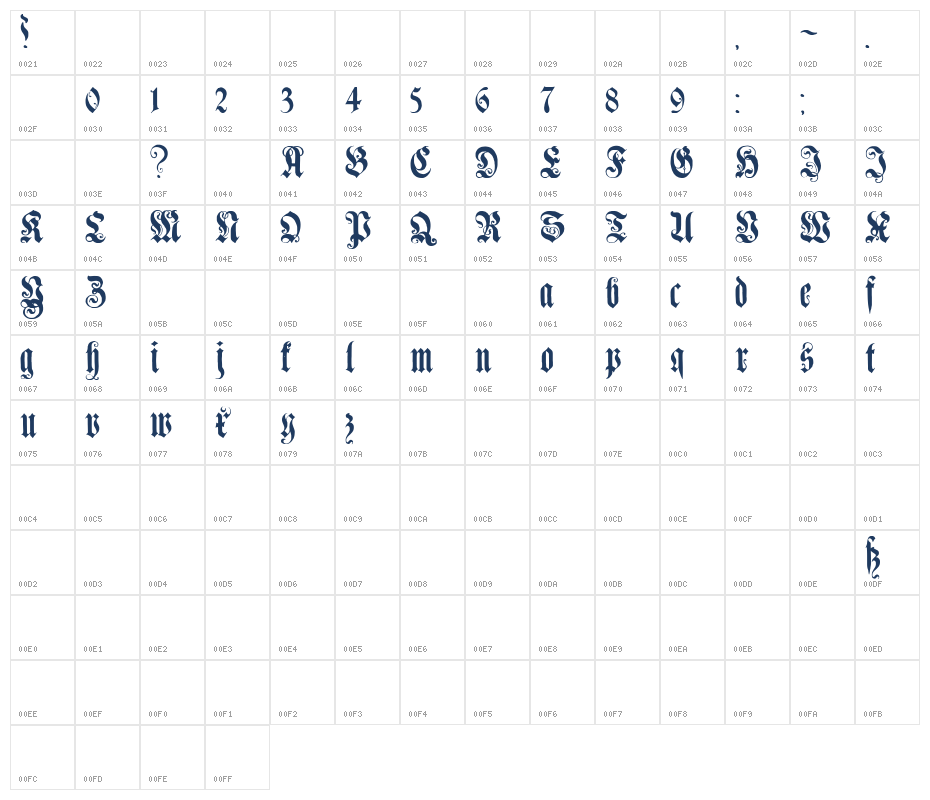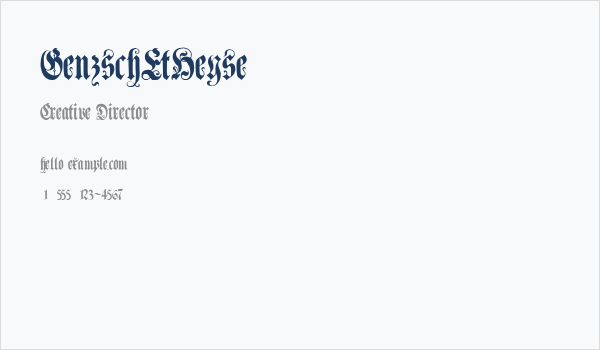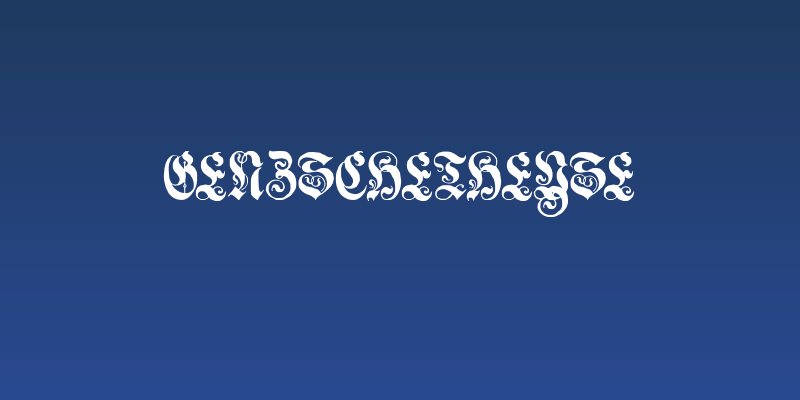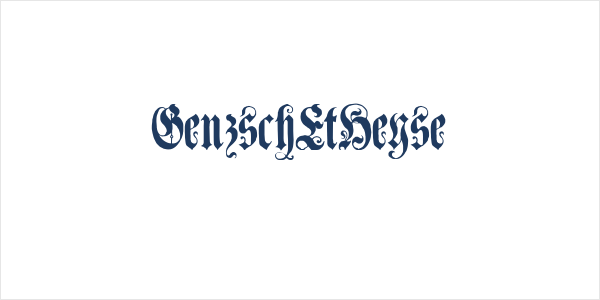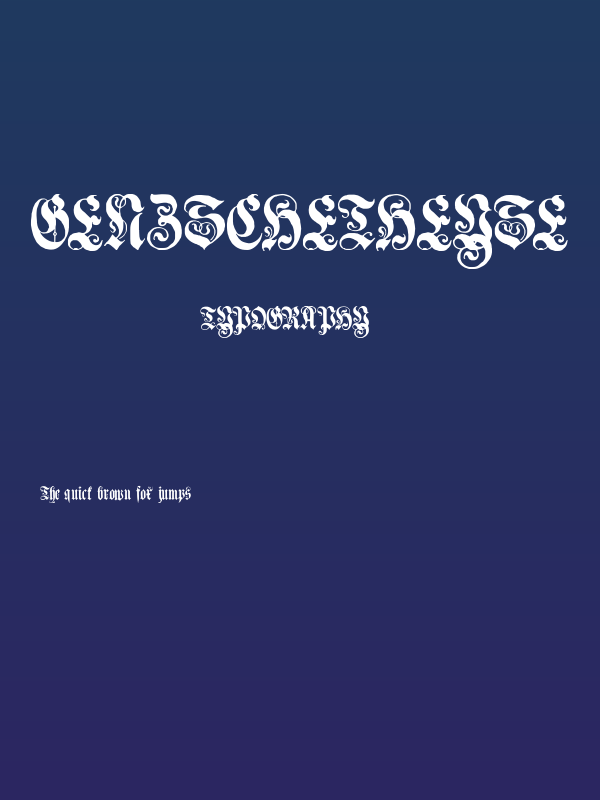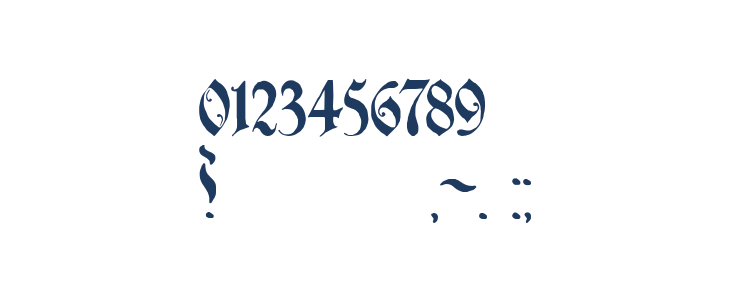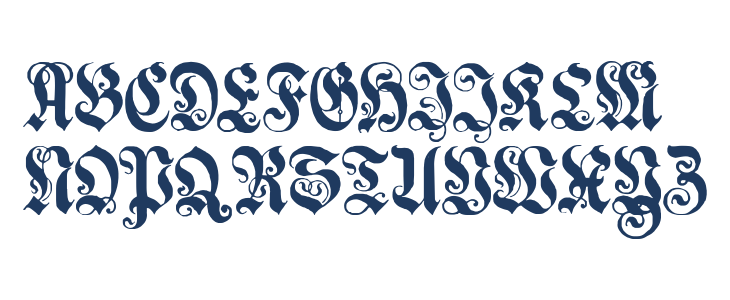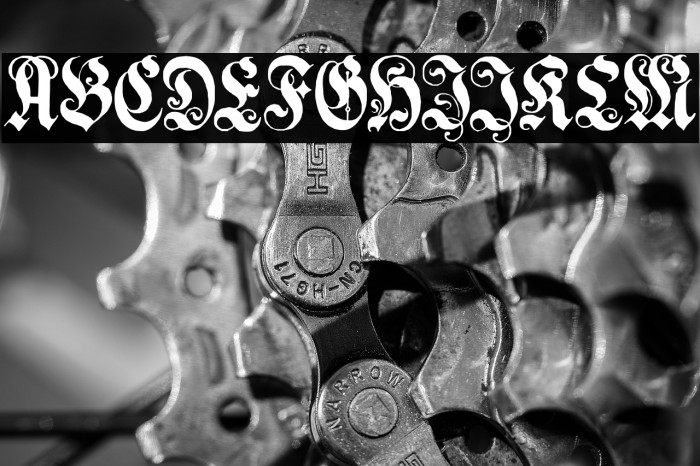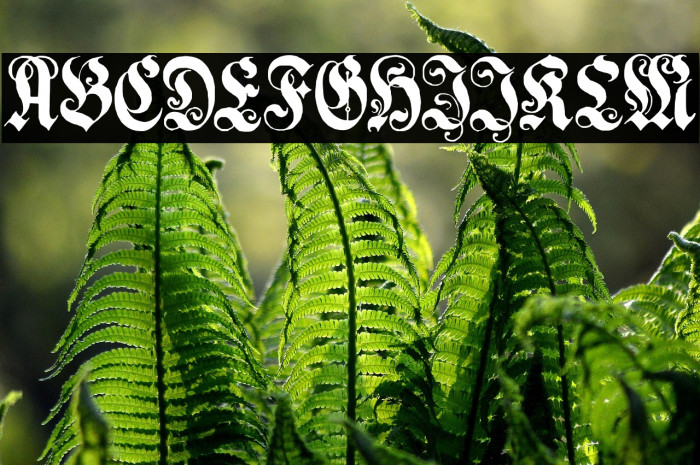
GenzschEtHeyse Font
GenzschEtHeyse Description
Ornate, Gothic-style blackletter font with elaborate swashes and decorative elements.
| Overall Style | Gothic, Vintage, Medieval |
| Use Case | Headlines, Logos, Posters, Decorative text |
| Author | Fonts by InermediaSTUDIO |